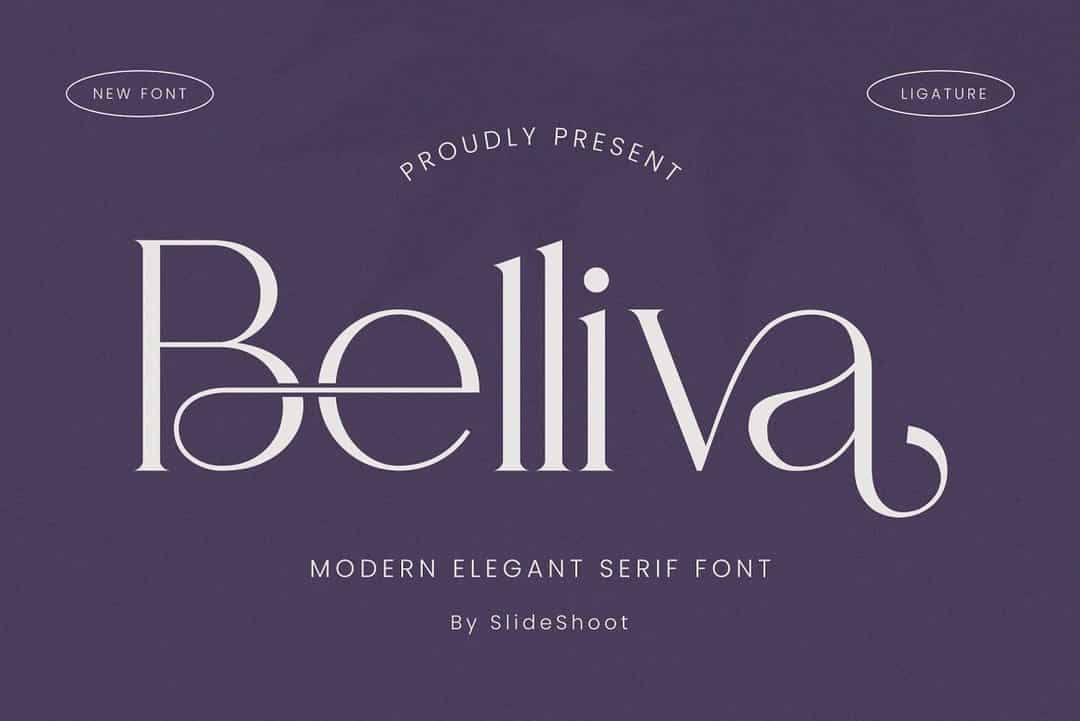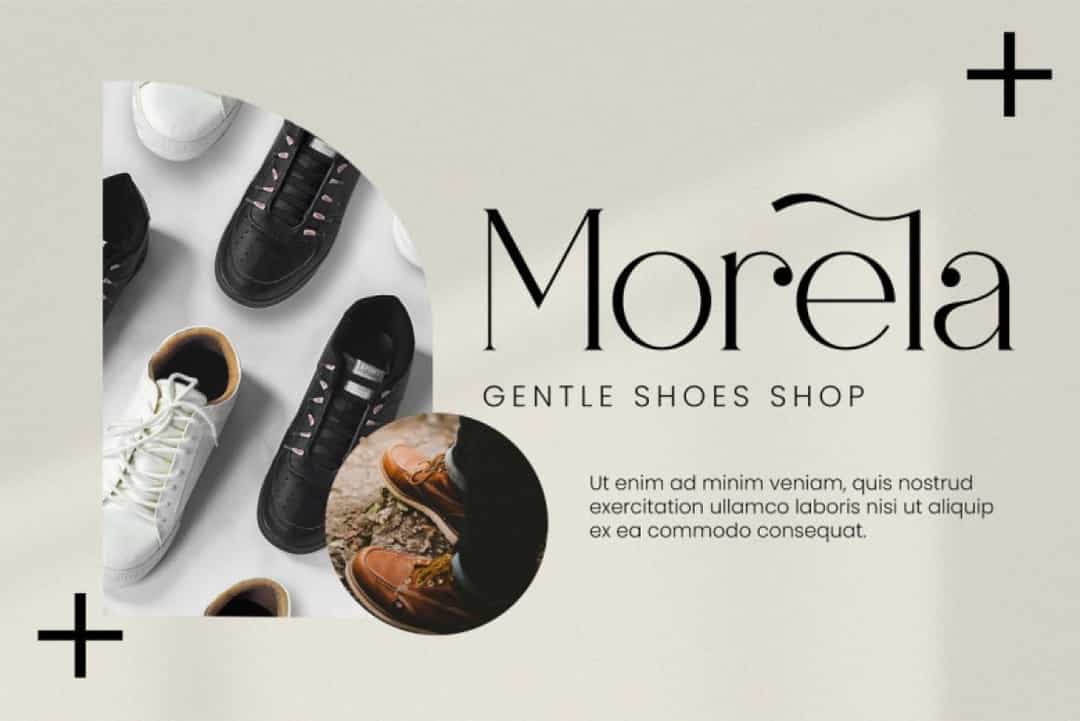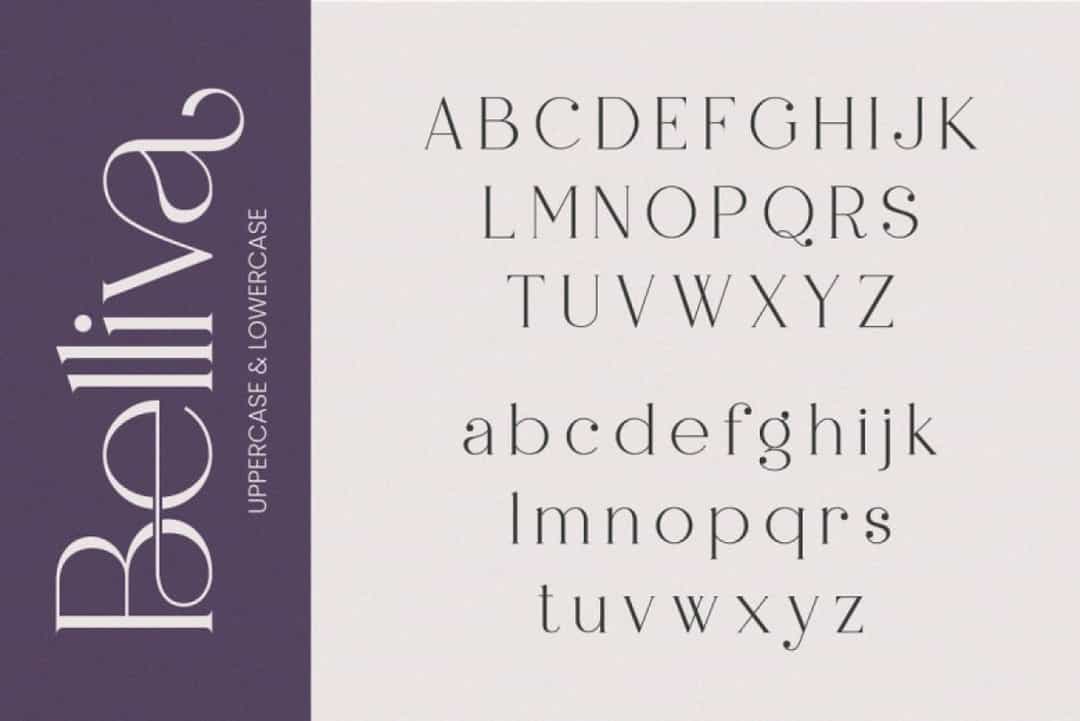
Belliva Font
Belliva It is a stylish yet elegant serif font designed to look its best across various applications – perfect for invitation cards, company logos, film names and titles for movies, books, business cards, book titles as well as brand names, other designs.
Belliva Font Image 1
Belliva Font Image 2
Belliva Font Image 3